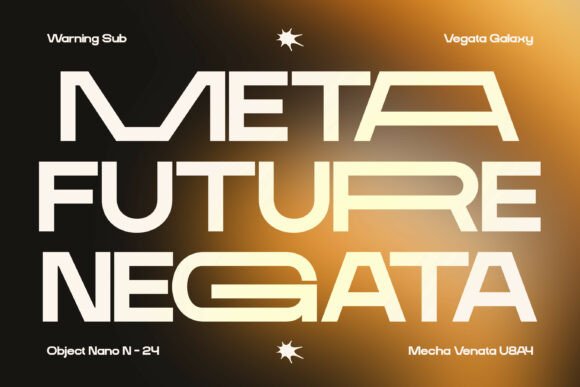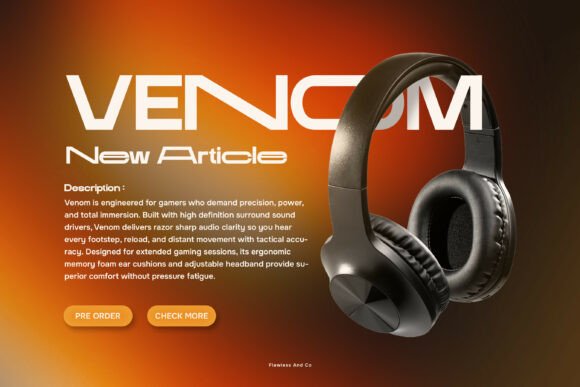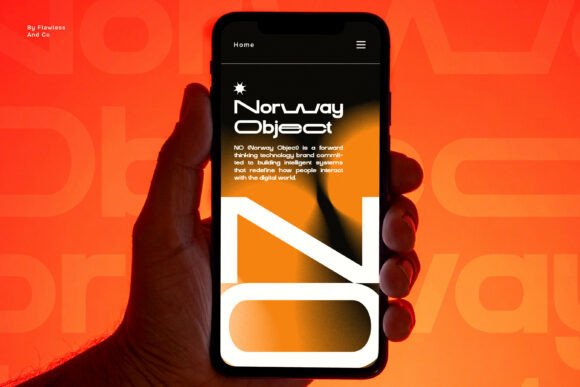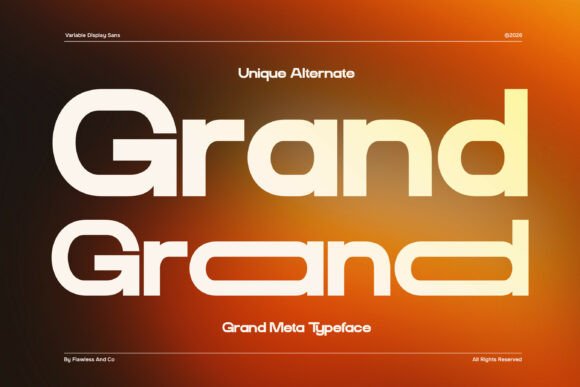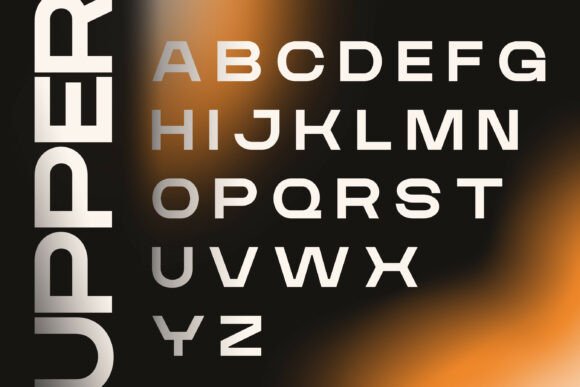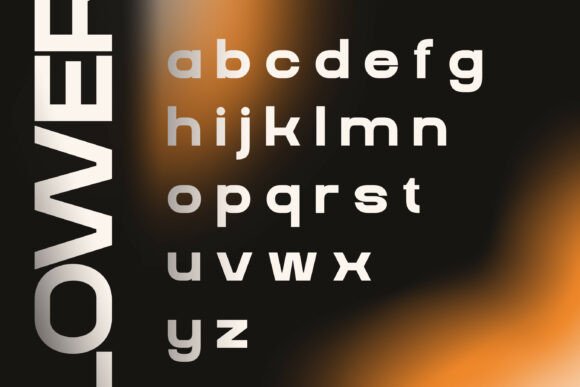
Introduction to Grand Meta Font
Grand Meta is a modern variative width sans serif font designed to bring flexibility, clarity, and dynamic style into your typography.
Featuring a unique range of width variations, this typeface allows you to explore creative compositions—from compact and space-saving layouts to wide and expressive headlines—while maintaining a consistent and cohesive look .
Key Features of Grand Meta Font
Why Choose Grand Meta Font?
Grand Meta Font offers exceptional quality and versatility, making it a valuable addition to your design toolkit. Whether you’re creating for personal projects or commercial use, Grand Meta Font delivers professional results.